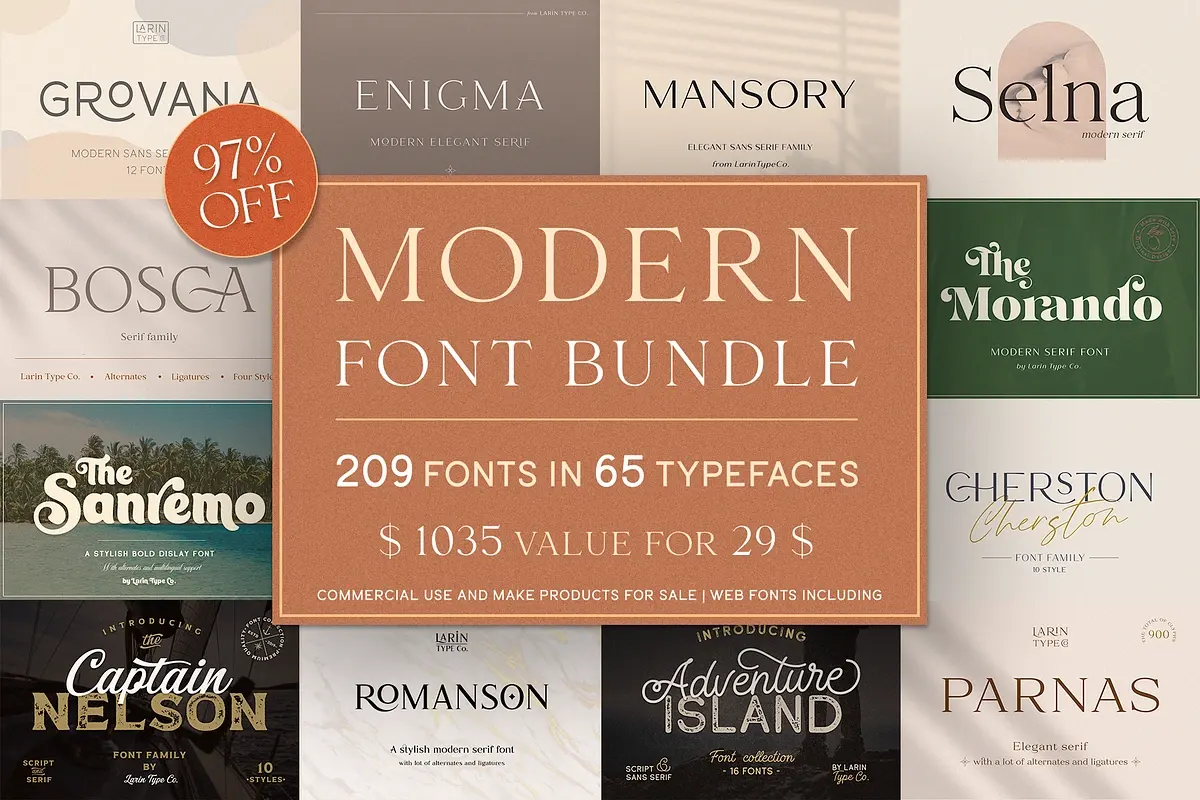
Modern Font Bundle Free Download is a curated collection of versatile and stylish typefaces designed to elevate your design projects. This bundle features a variety of fonts, from clean sans-serifs to elegant serifs and creative scripts, making it ideal for branding, web design, editorial layouts, invitations, and more.
Each font in the bundle offers a unique look, allowing you to mix and match for various creative purposes while maintaining a cohesive aesthetic. Whether you’re working on logos, social media graphics, print materials, or any other type of design, this bundle provides the tools you need for modern, polished typography.